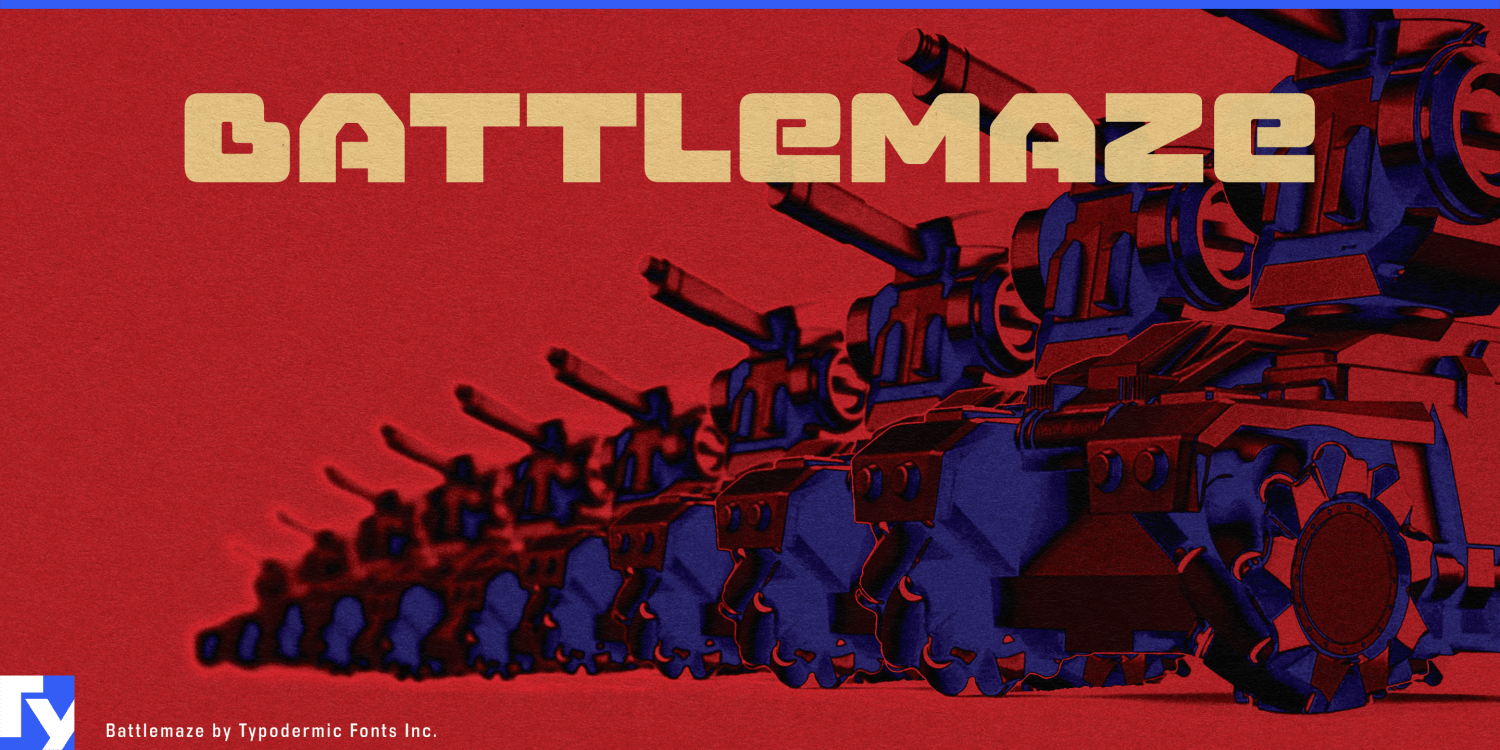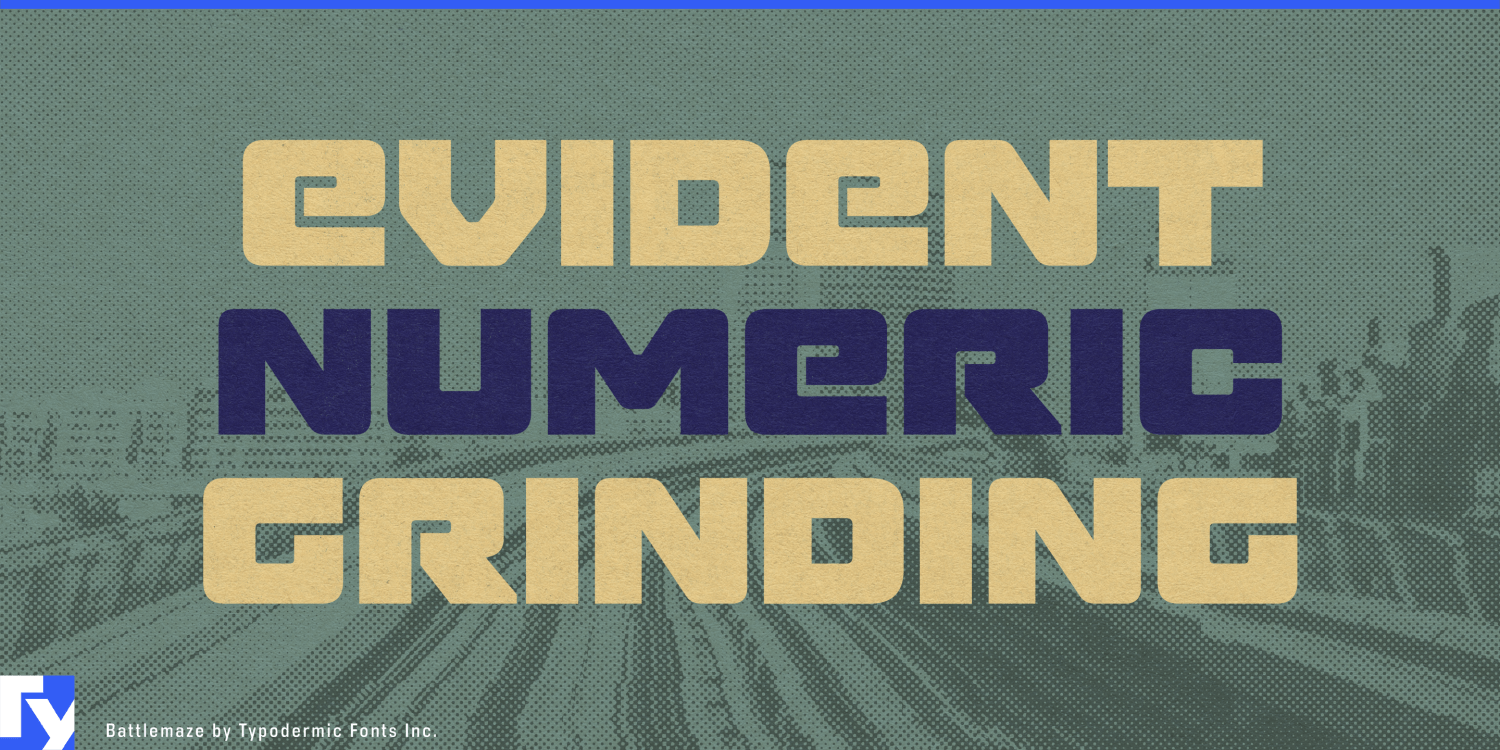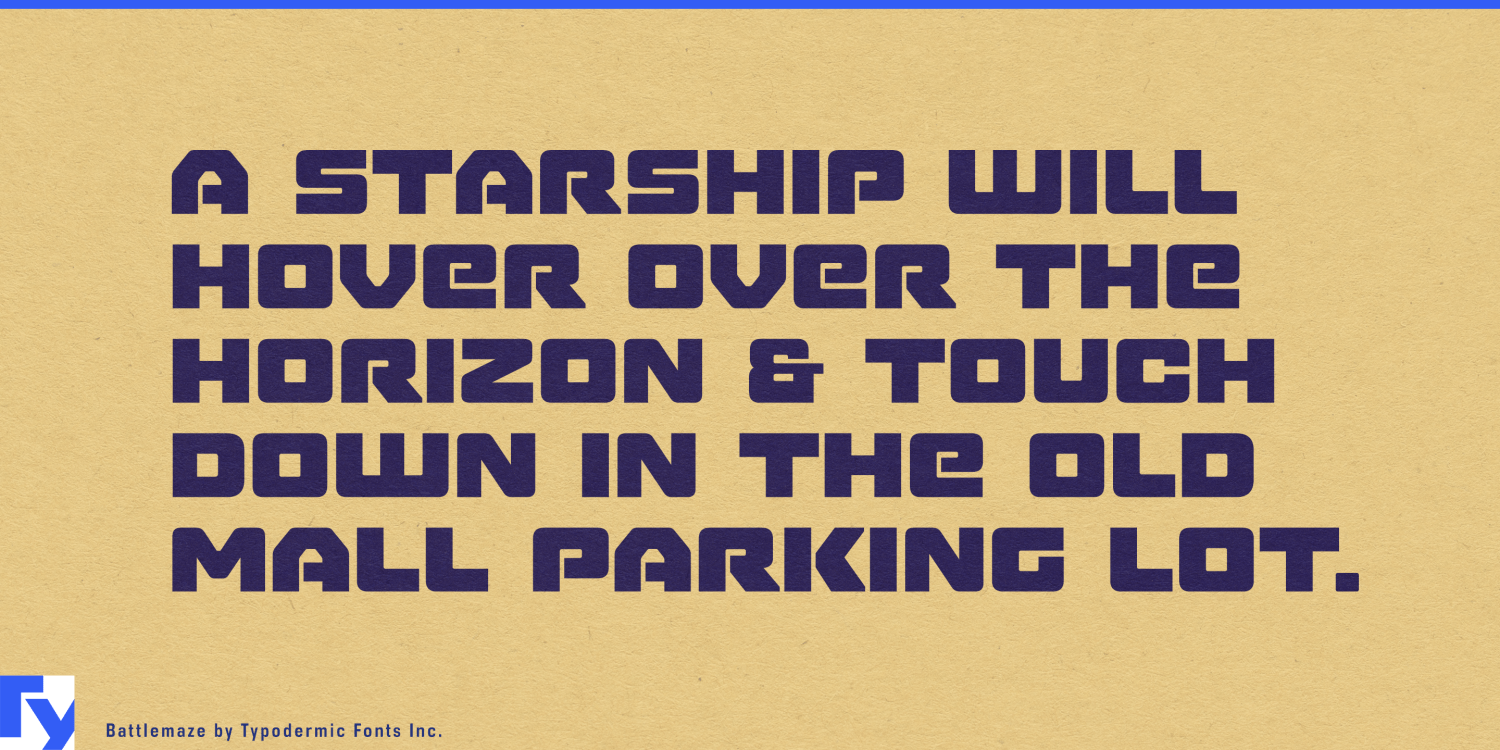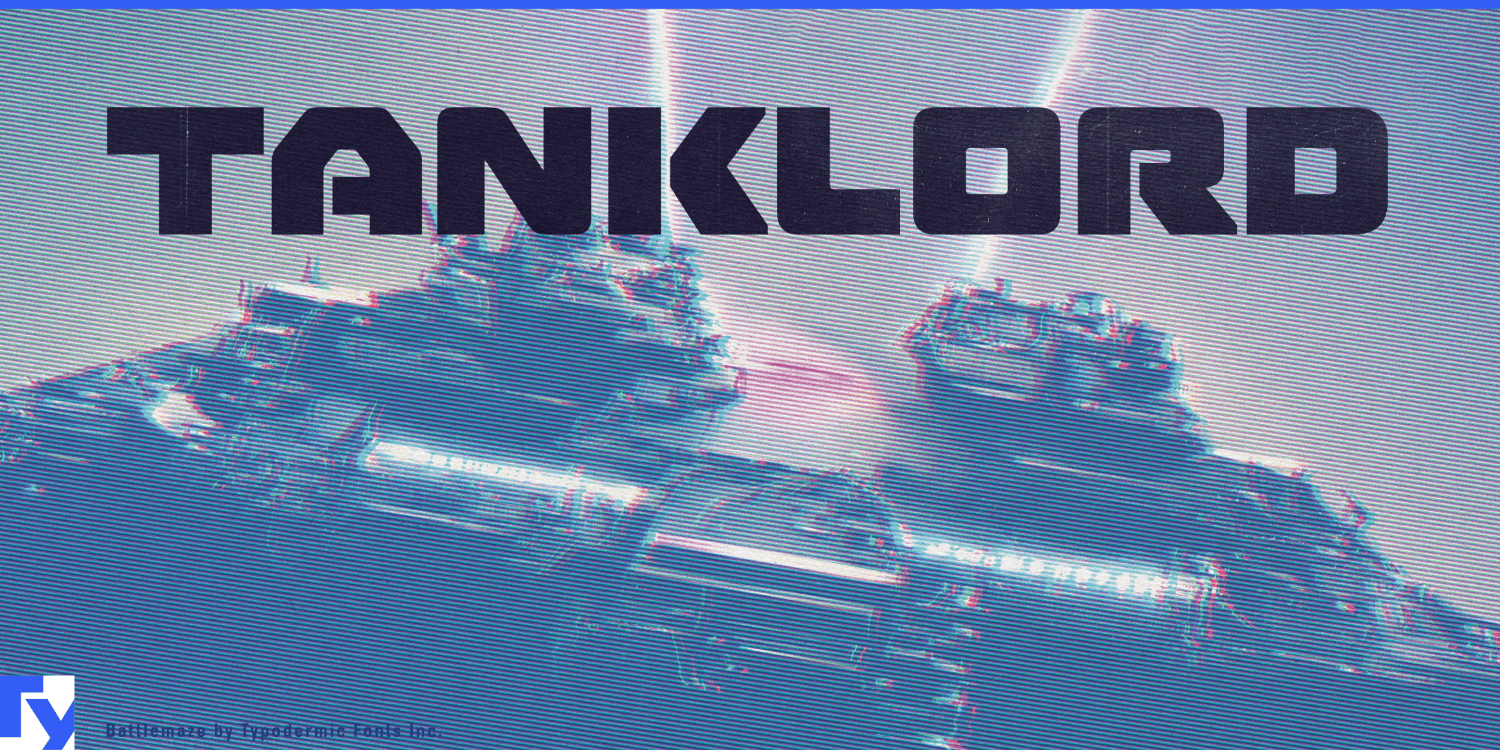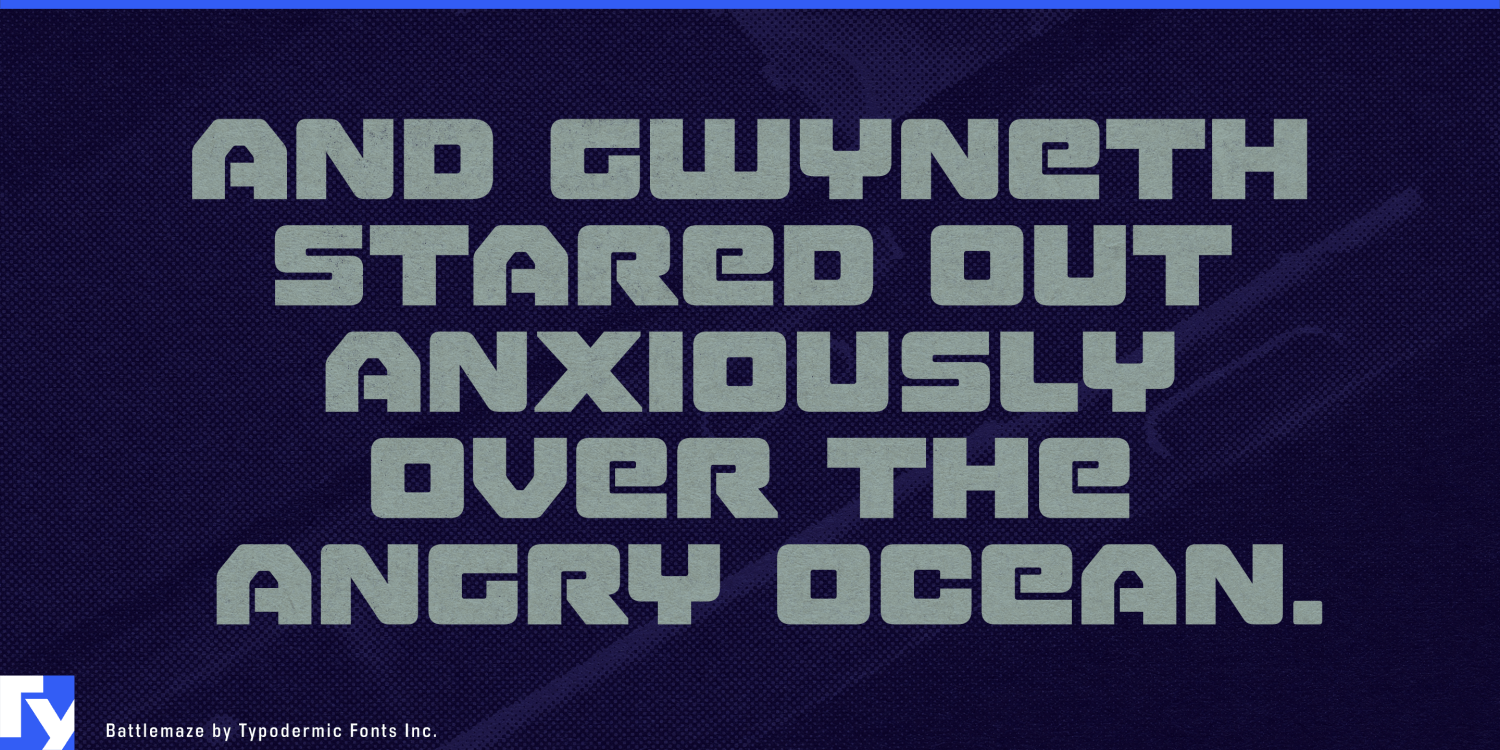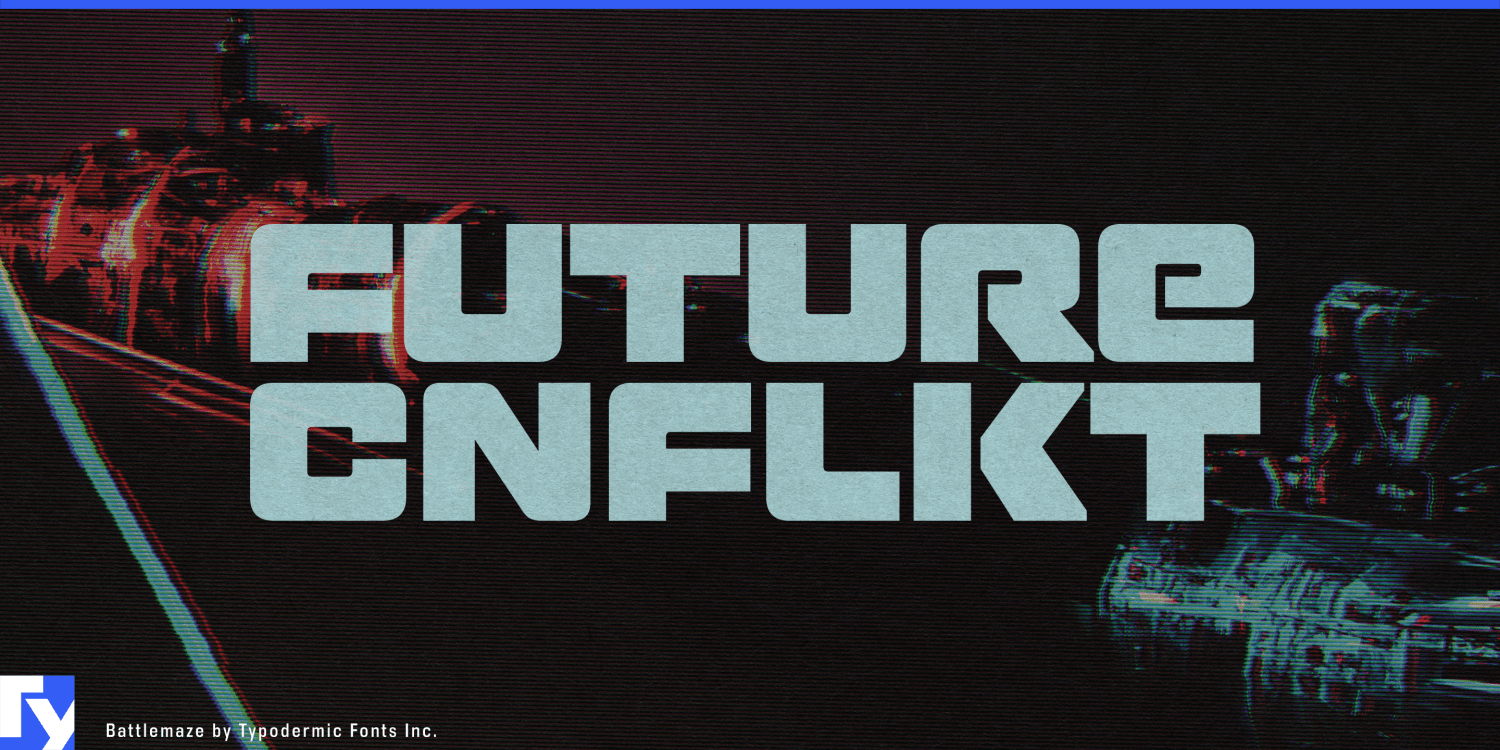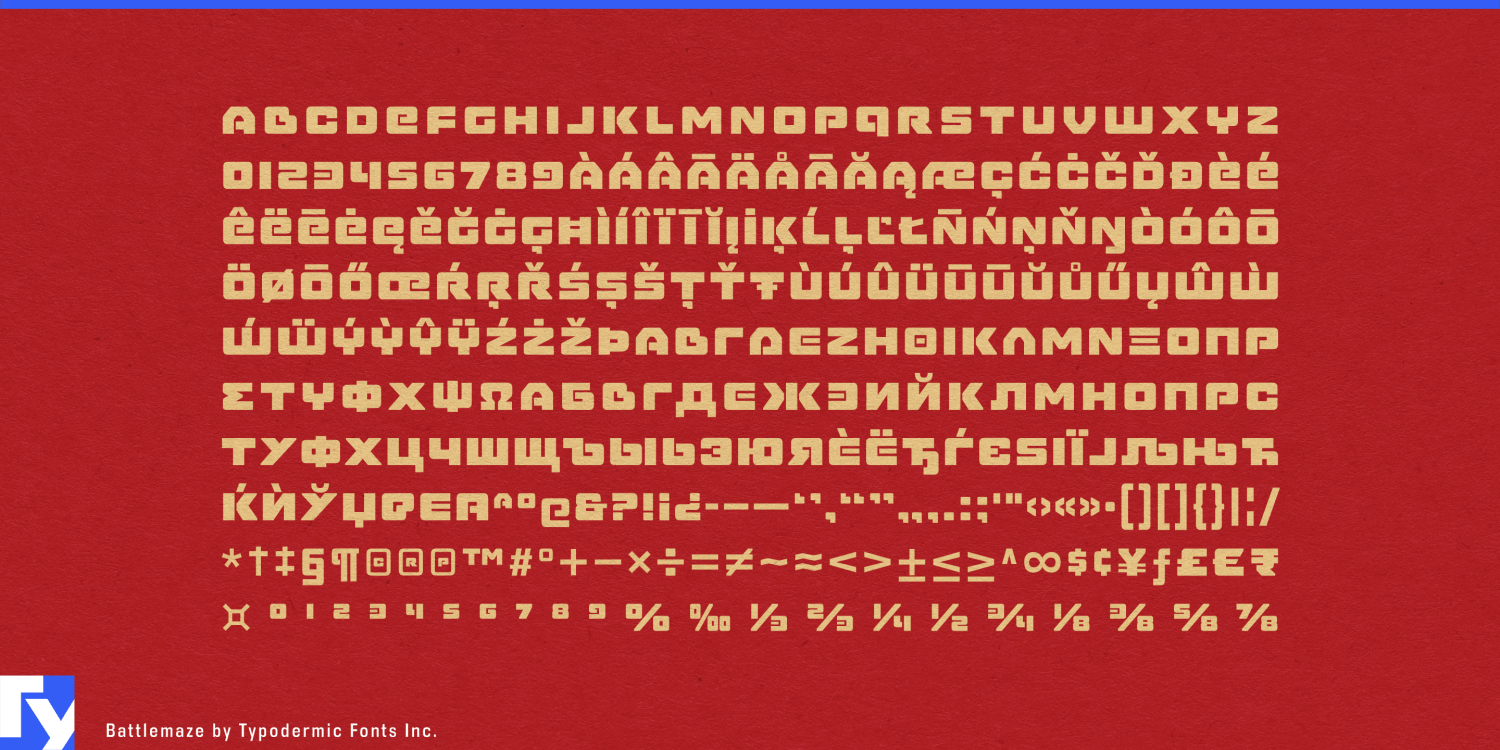
Battlemaze Hv
Font Family by Typodermic
Introducing Battlemaze, a bold headline typeface that fuses the stark precision of Japanese industrial design with the futuristic edge of 1980s computer aesthetics. This font stands ready to command attention in any design battlefield, from cutting-edge tech branding to forward-thinking editorial layouts.
Battlemaze’s tightly folded line treatment creates a robust, techno-organic structure that’s as visually striking as it is legible. Each character is engineered to maintain clarity even in the most challenging visual environments, making it an ideal choice for high-impact headlines and logos. The font’s unique personality shines through in details like its angled “A” and “V” glyphs, which add a dynamic energy to any text. For those seeking an extra layer of typographic intrigue, Battlemaze includes a special ligature feature—the “B” character flips when preceding a “J”, period, or comma, offering a subtle yet distinctive flourish.
Battlemaze isn’t just about style—it’s built for versatility. With support for a wide range of Latin-based European languages and select Cyrillic scripts, this font is equipped to deliver its powerful visual message across linguistic borders. From Albanian to Zulu, Battlemaze speaks with authority. Whether you’re designing for tech startups, creating eye-catching magazine spreads, or crafting identities for forward-thinking brands, Battlemaze provides the typographic firepower you need. It’s more than just a font—it’s a visual statement that declares your design is ready for the digital age and beyond.
Choose Battlemaze when you need typography that doesn’t just speak, but commands. It’s time to arm your designs with the bold, futuristic presence of Battlemaze.